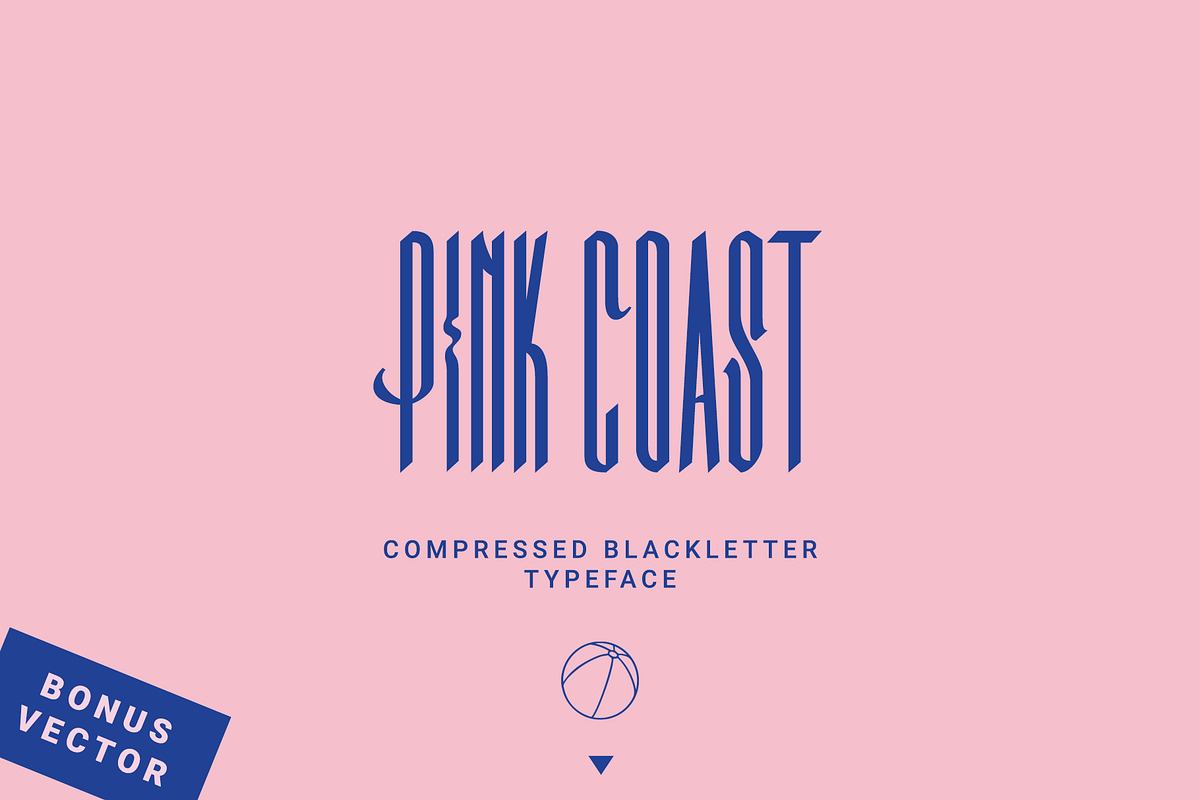
Pink Coast Typefaces Free Download
Pink Coast Typefaces Free Download is a dreamy and stylish font collection inspired by coastal vibes, pastel sunsets, and modern minimalism. Perfect for branding, lifestyle blogs, social media templates, packaging, and editorial layouts, Pink Coast offers a clean yet playful aesthetic that instantly elevates any design.
With a blend of soft curves and sleek lines, this typeface brings a fresh, feminine, and contemporary feel. Whether you're designing for beauty products, fashion labels, or creative studios, Pink Coast Typefaces help you create a relaxed yet refined look.